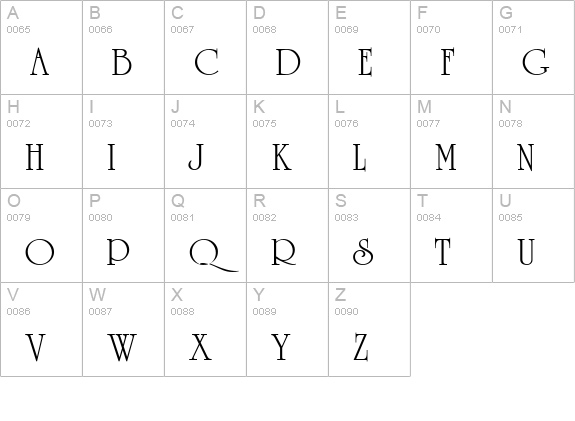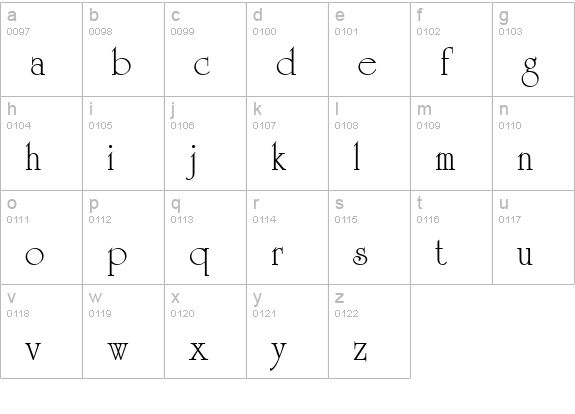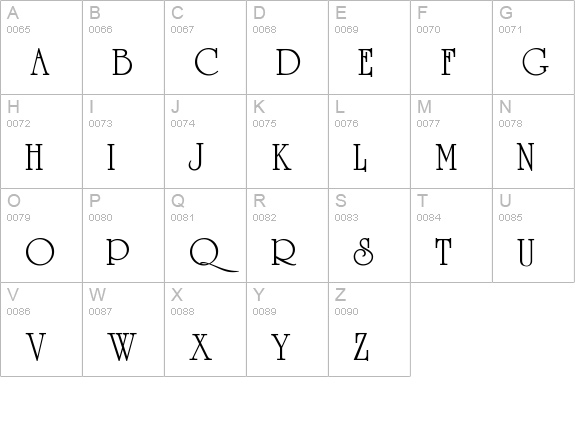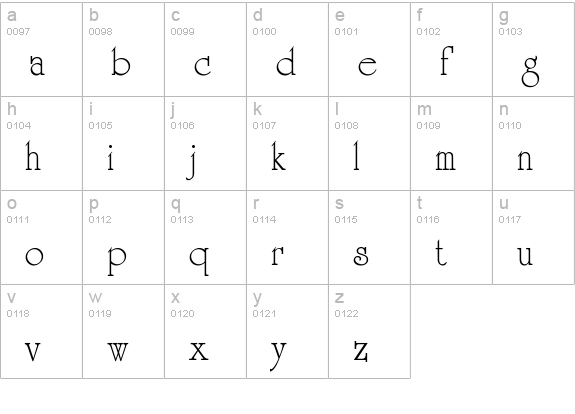
University LT Roman Font Details
University LT Roman font is a timeless and classic typeface that exudes elegance and sophistication. With its clean lines and strong, bold characters, this font is perfect for any design project that requires a touch of professionalism and refinement. The University LT Roman font is a versatile typeface that can be used in a variety of applications, from print materials such as brochures, posters, and business cards, to digital designs like websites, logos, and social media graphics. Its legibility and readability make it ideal for both large blocks of text and headlines, ensuring that your message is delivered with clarity and impact. One of the most remarkable aspects of the University LT Roman font is that it is freely available to download at FontsMarket.com. This means that you can enhance your designs with this exceptional font without any cost, making it an excellent choice for budget-conscious designers, students, and anyone looking to add a touch of sophistication to their projects without breaking the bank. Whether you are a graphic designer, a student working on a school project, or a business owner looking to elevate your brand's visual identity, the University LT Roman font is a valuable addition to your font library. Its timeless appeal and accessibility make it a go-to choice for professionals and enthusiasts alike. So why wait? Download the University LT Roman font for free at FontsMarket.com and elevate your designs with its timeless elegance and professionalism.